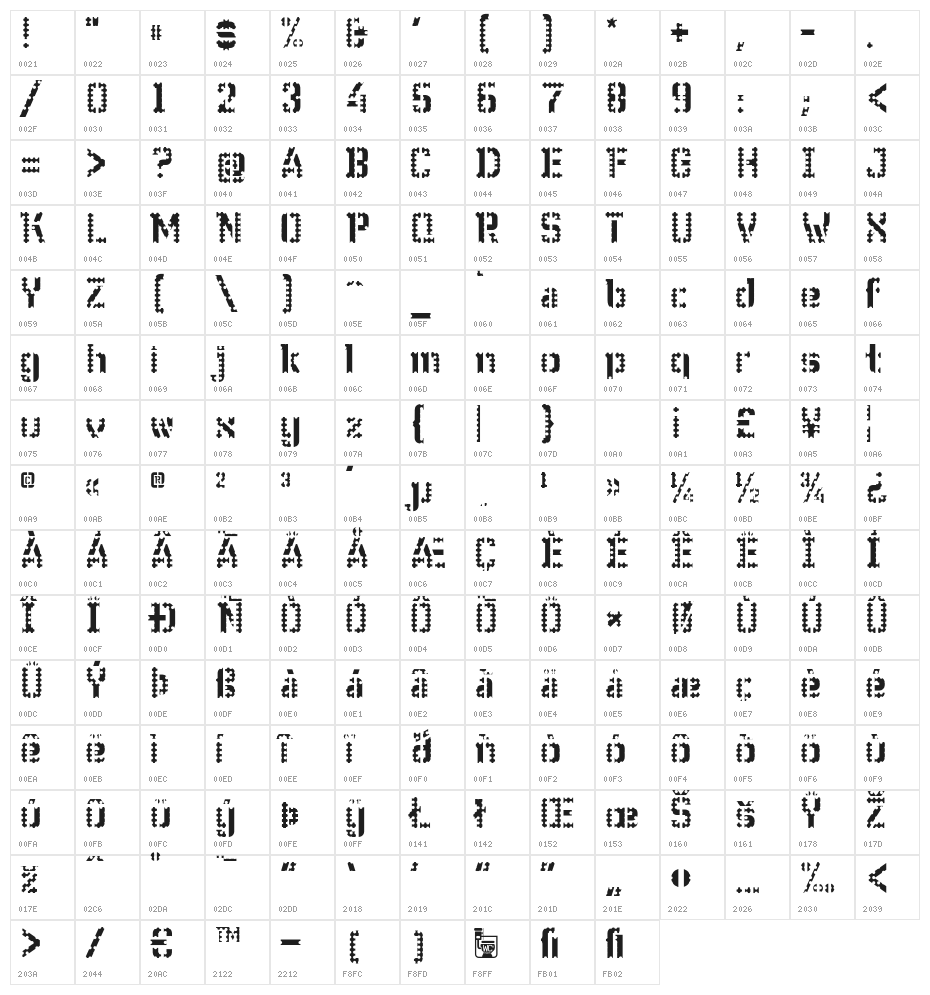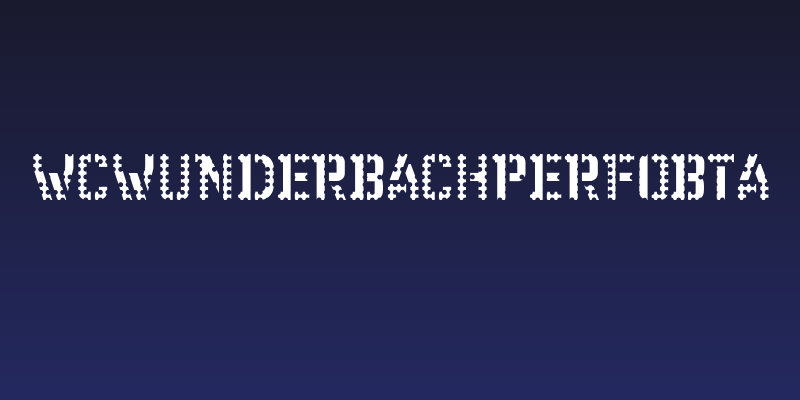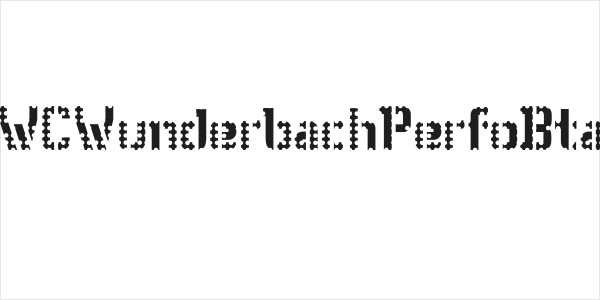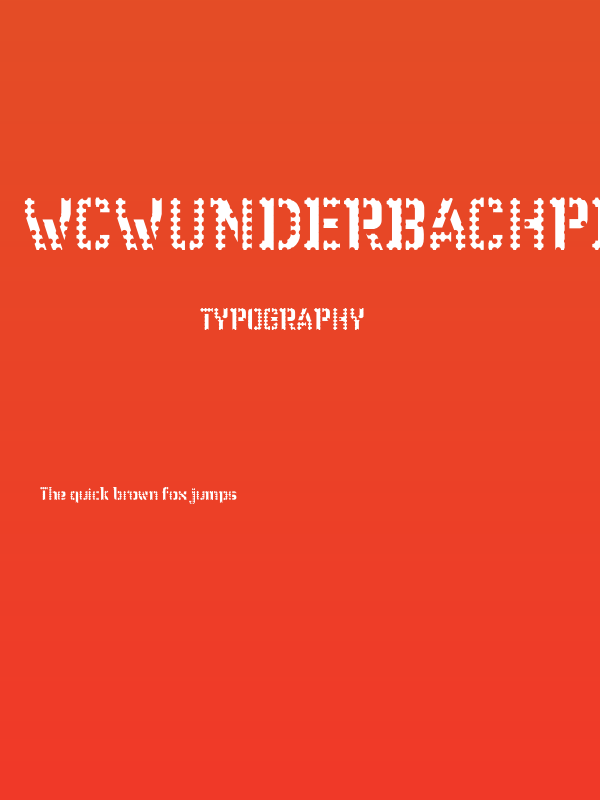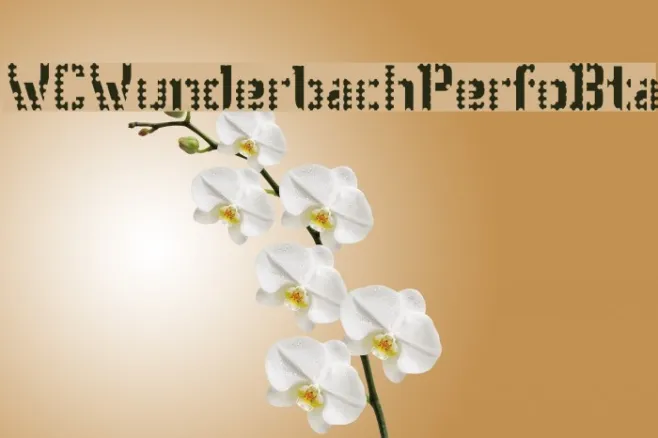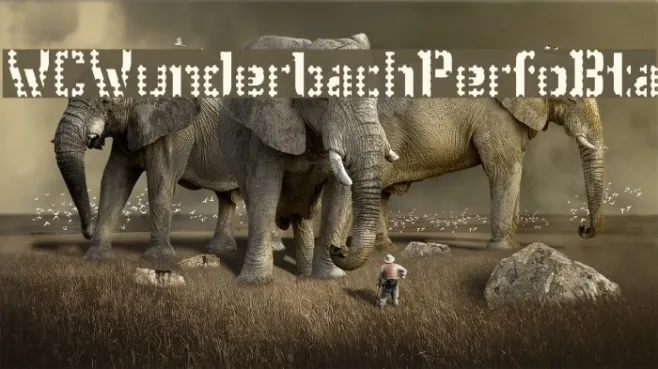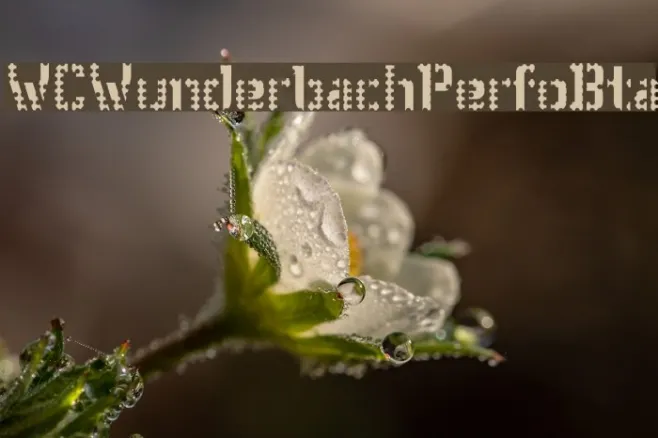
WCWunderbachPerfoBta Font
WCWunderbachPerfoBta Description
This font features a unique and bold design with a perforated, stencil-like appearance. Each character is crafted with a series of circular cutouts, creating a distinctive and eye-catching pattern. The uppercase and lowercase letters maintain a consistent style, with strong geometric shapes and a playful yet industrial aesthetic. The numbers and special characters follow the same design principles, ensuring uniformity across all glyphs. This font's innovative style makes it stand out, offering a modern twist on traditional stencil fonts.
| Proposed Projects | Ideal for branding, posters, and packaging design where a bold, unique look is desired. |